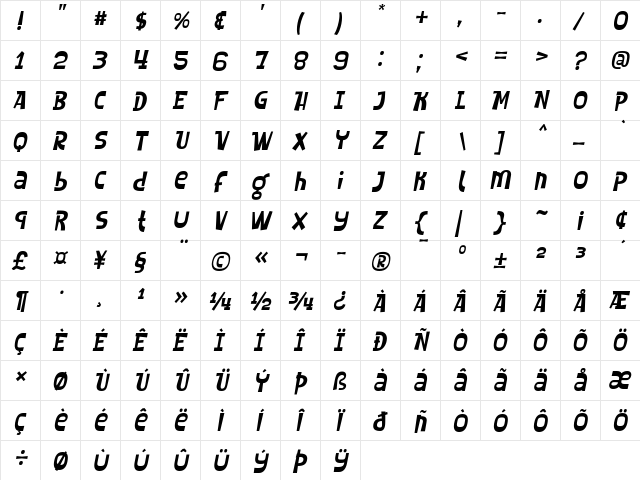
SHEROO Italic
| Foundry | 7NTypes |
| Designer | Situjuh Nazara |
Design Context for SHEROO Typeface
SHEROO is a composed and adaptable typeface that performs quietly and consistently across a wide range of design contexts. The dynamic lean of this cut emphasises speed and emphasis in any layout.
Pro Tip: Use SHEROO for emphasis, pull quotes, and subheadings where its slanted energy can add rhythm to the layout.